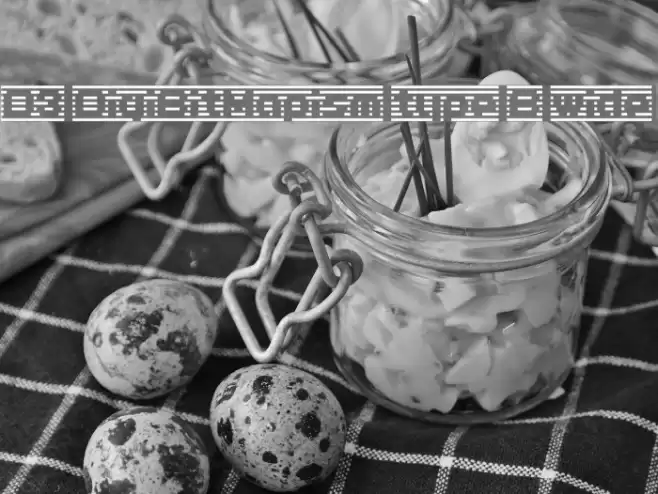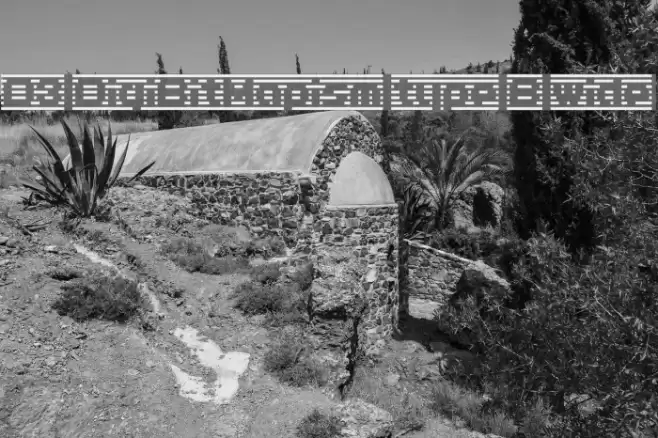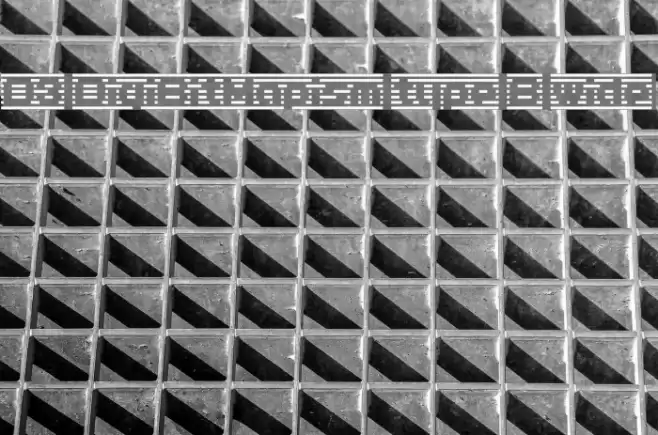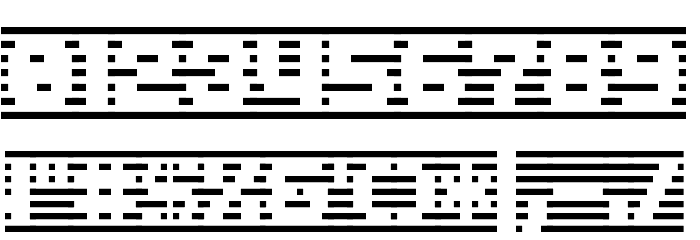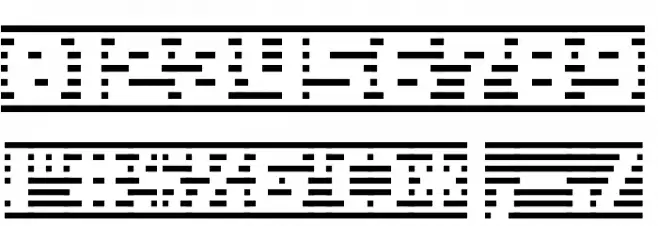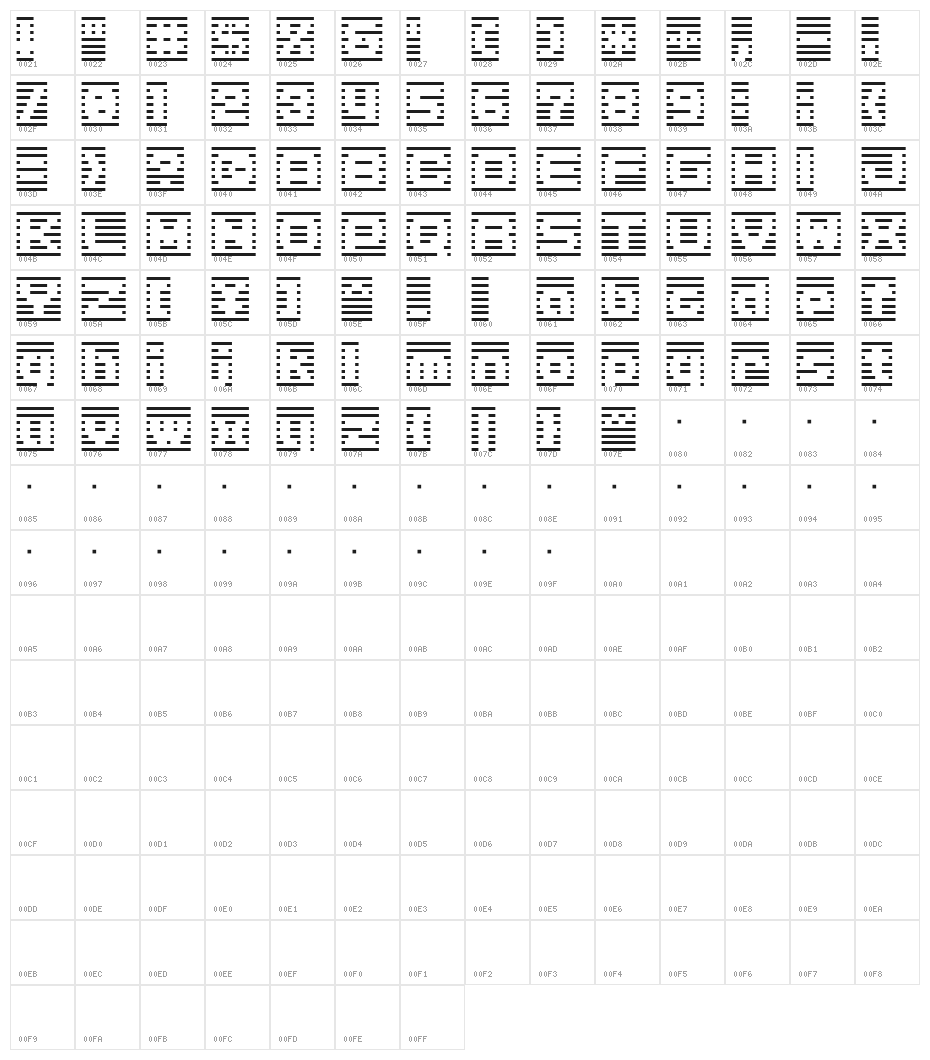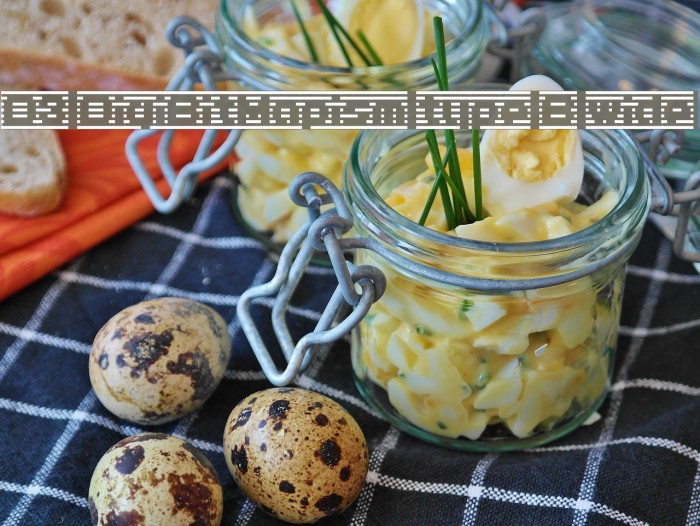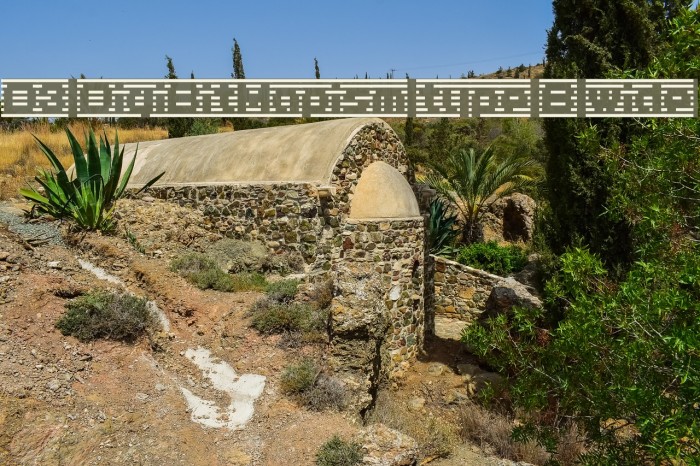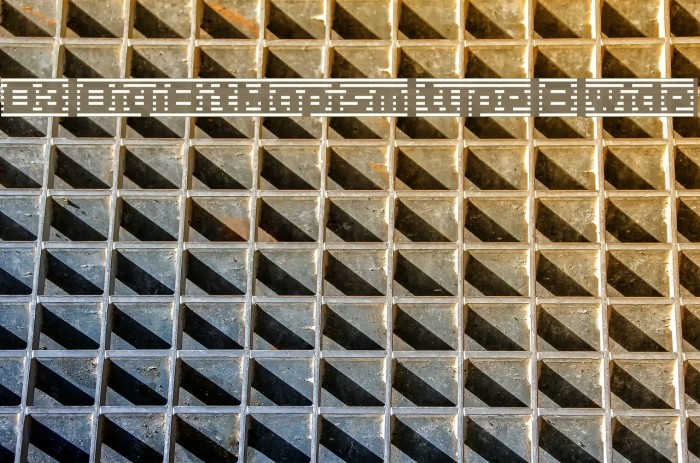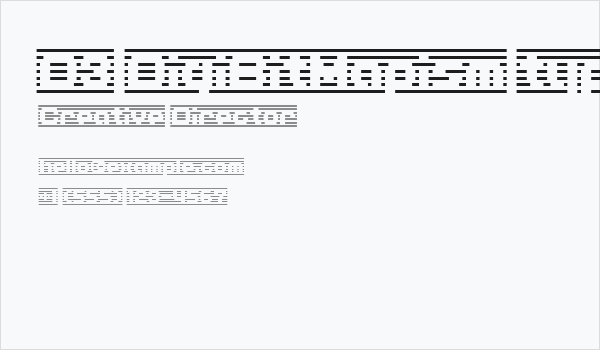
D3 DigiBitMapism type B wide Font
D3 DigiBitMapism type B wide Description
This font features a distinct bitmap style, characterized by its pixelated, grid-like appearance. Each character is constructed using a series of horizontal and vertical lines, creating a digital, retro aesthetic reminiscent of early computer graphics. The uniformity in line thickness and spacing gives it a structured, mechanical feel. Despite its rigid form, the font maintains legibility, making it suitable for digital displays. The uppercase and lowercase letters, as well as numbers and special characters, are all designed with the same pixelated approach, ensuring consistency across the typeface.
A pixelated, bitmap-style font with a retro digital aesthetic from 3D fonts.
- Proposed Projects: Ideal for projects that require a retro or digital theme, such as video game graphics, tech-themed posters, or digital art installations.
- Overall Style: Retro, Digital
- Use Case: Logos, Digital displays, Posters